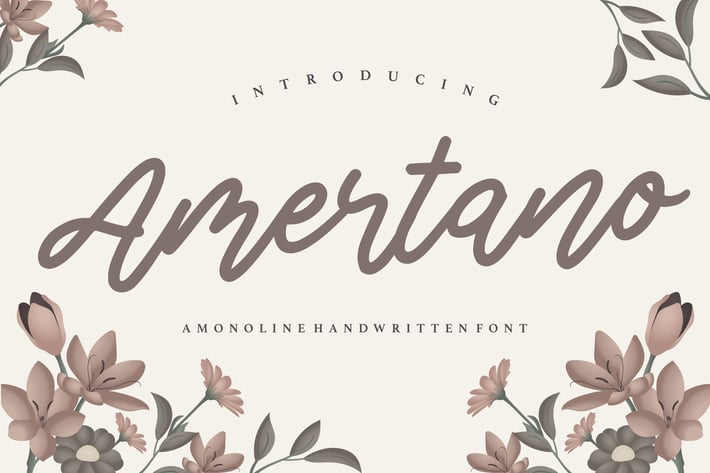
Amertano - A Monoline Handwritten Logo Font
Proudly Present, Amertano Font
Amertano is a flowing handwritten font, described by an elegant touch, perfect for your favorite projects. Fall in love with its incredibly distinct and timeless style and use it to create spectacular designs!
also multilingual support
Amertano is a flowing handwritten font, described by an elegant touch, perfect for your favorite projects. Fall in love with its incredibly distinct and timeless style and use it to create spectacular designs!
also multilingual support